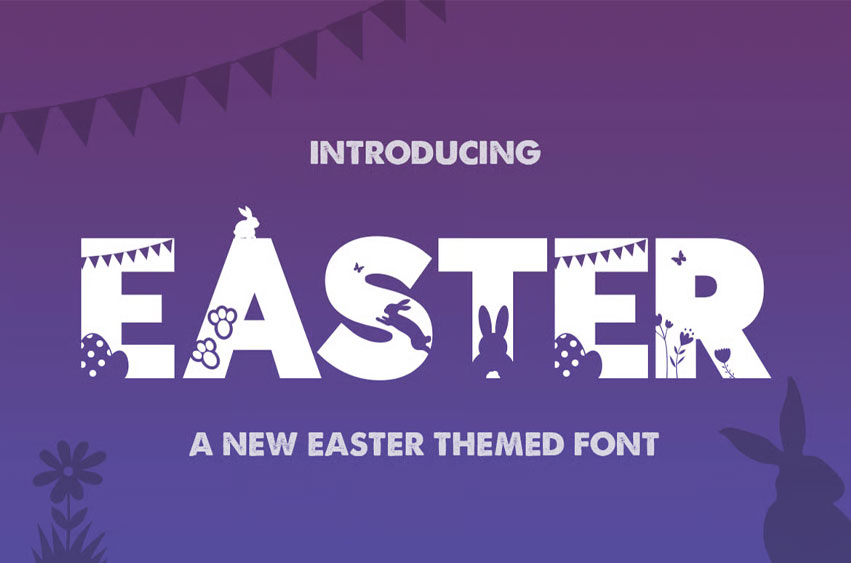
Easter Silhouette Font
Easter Silhouette Font is suitable for flyers, posters, novels, letterheads, or any design requirements you want to be awesome.
It will certainly amaze your readers.